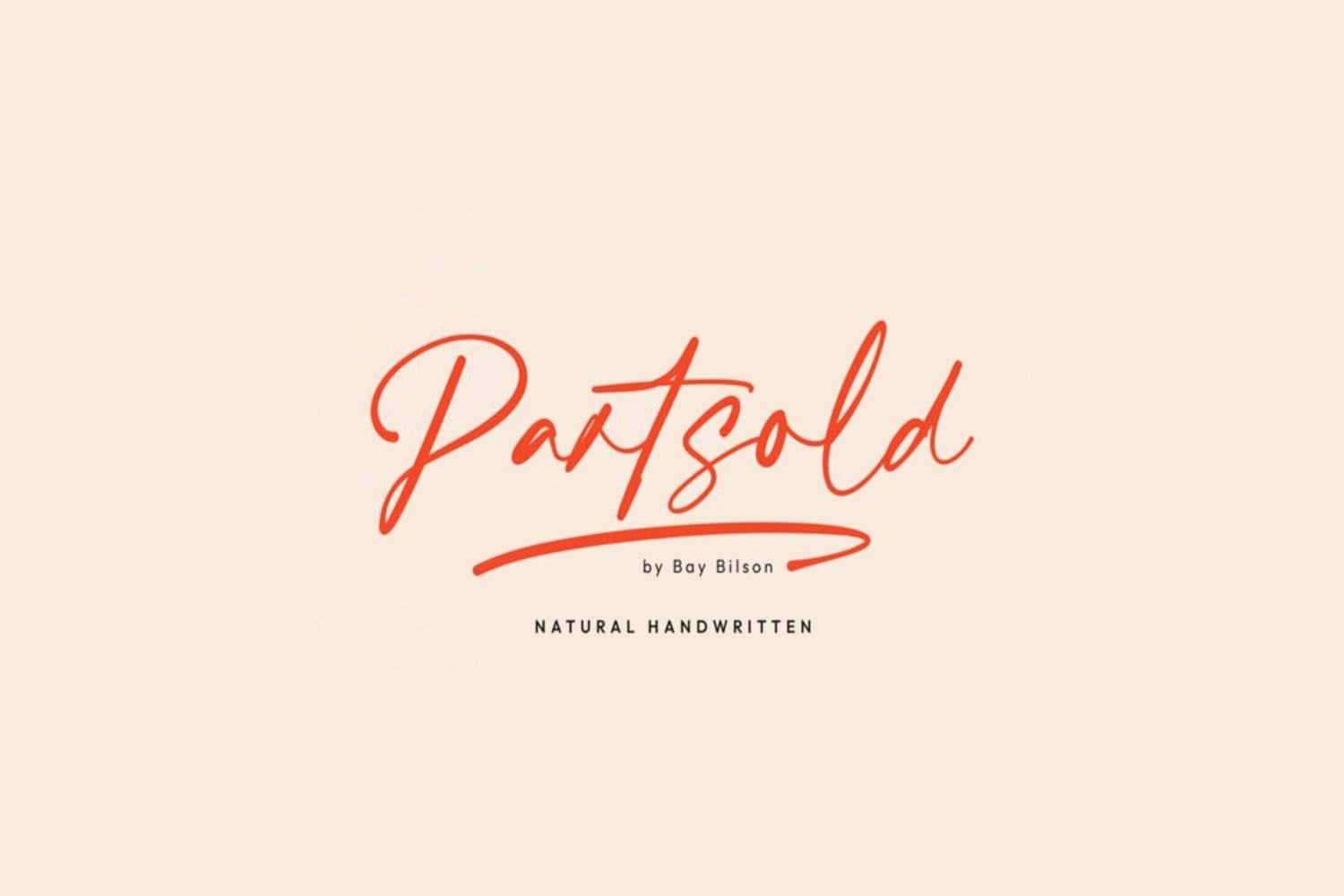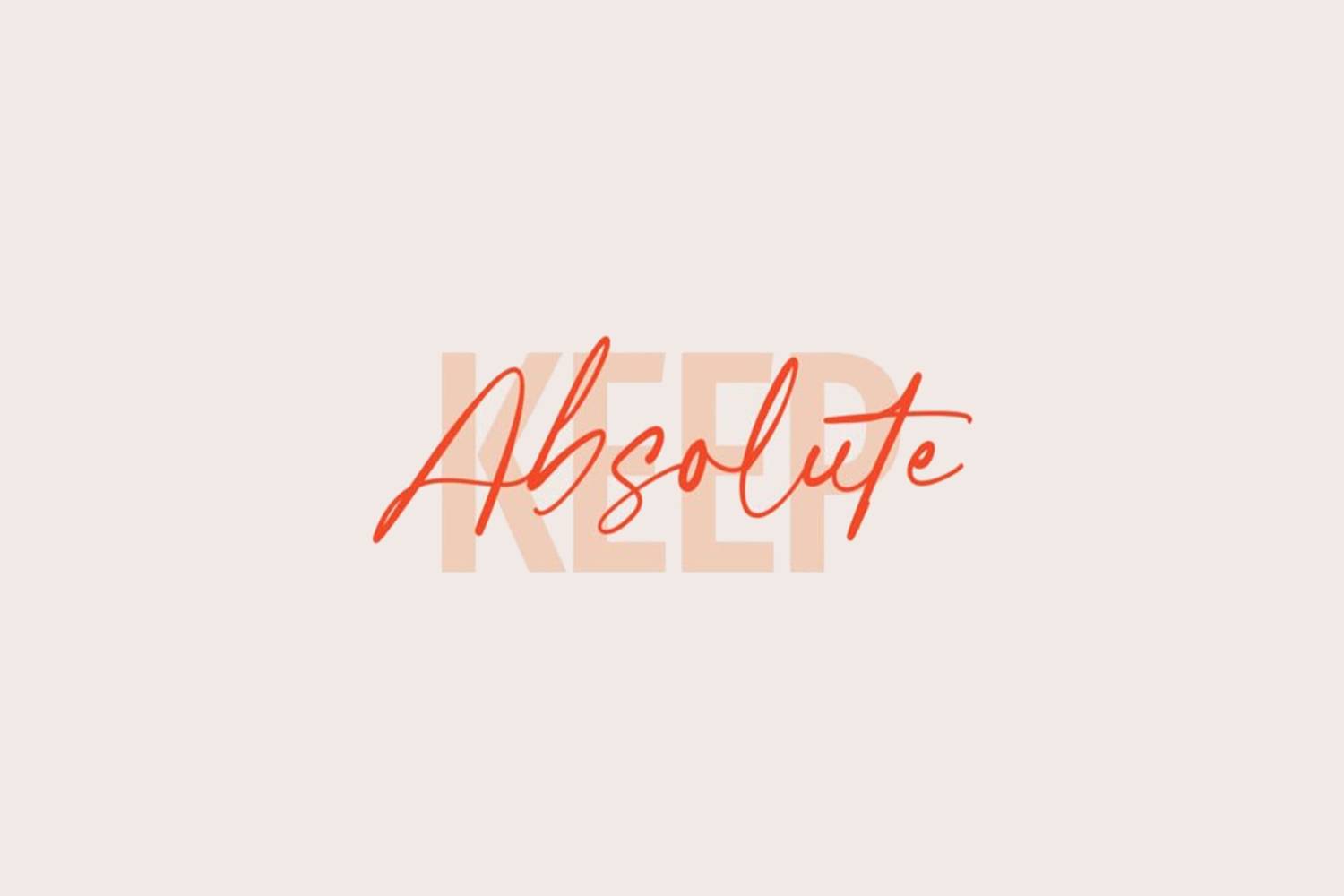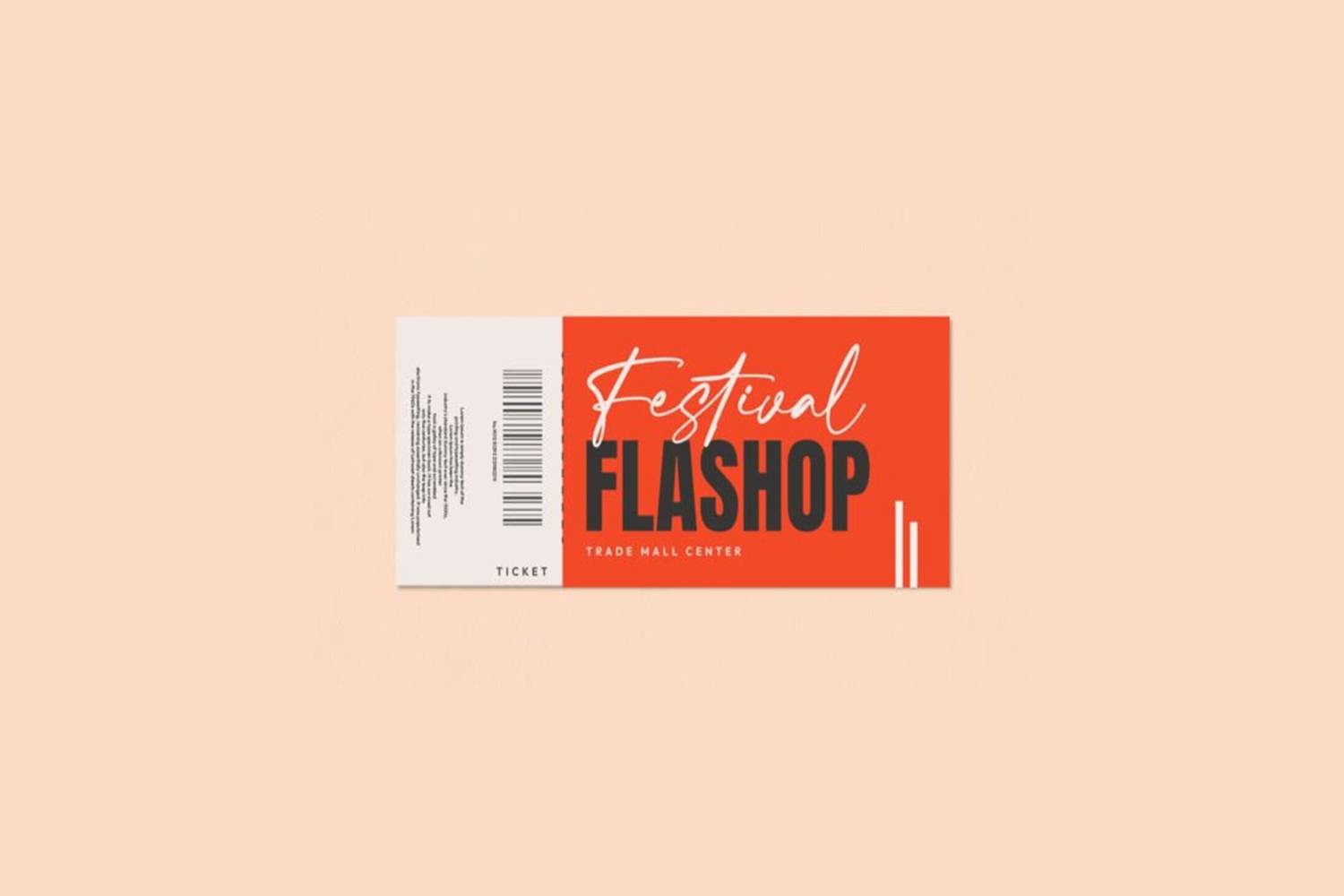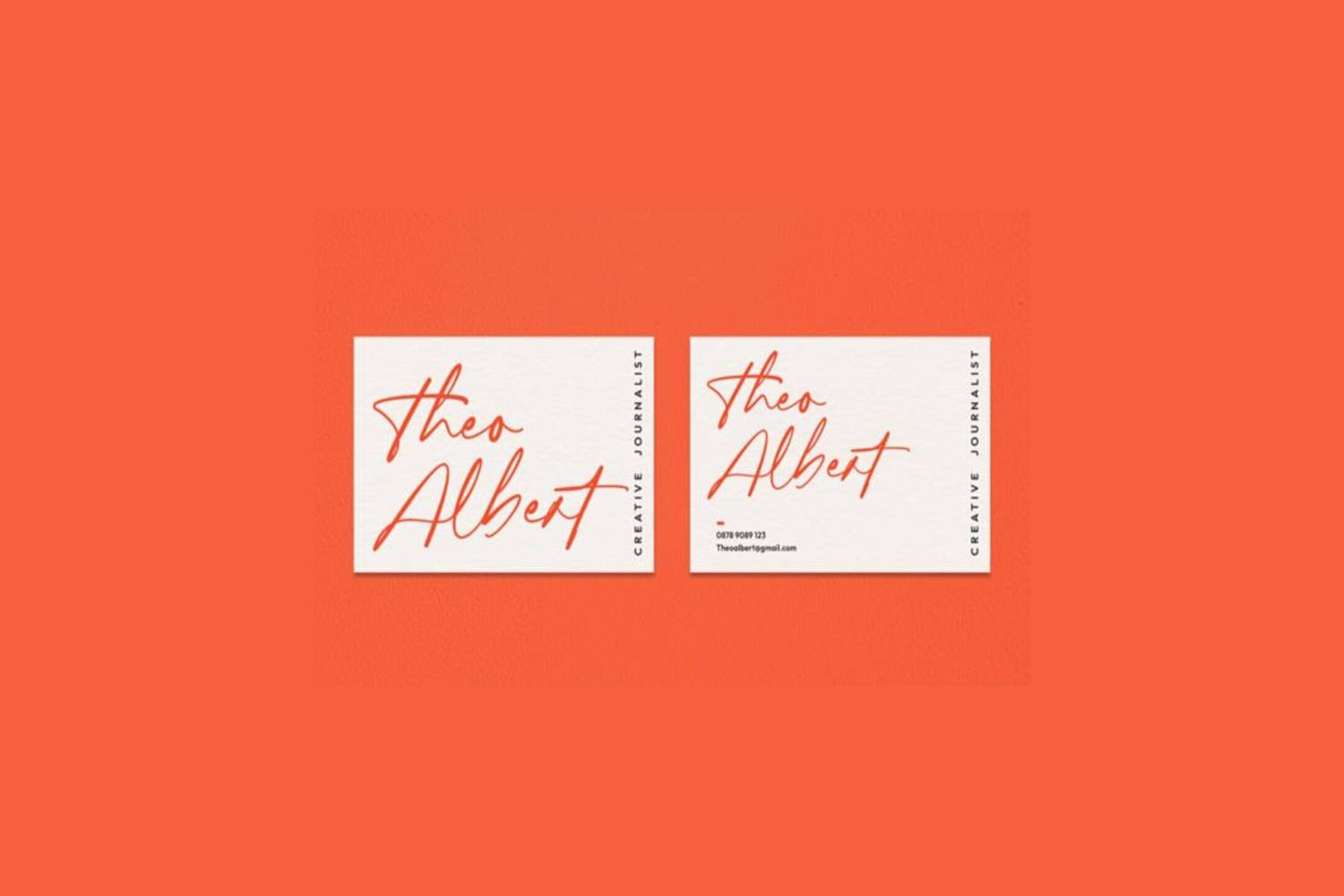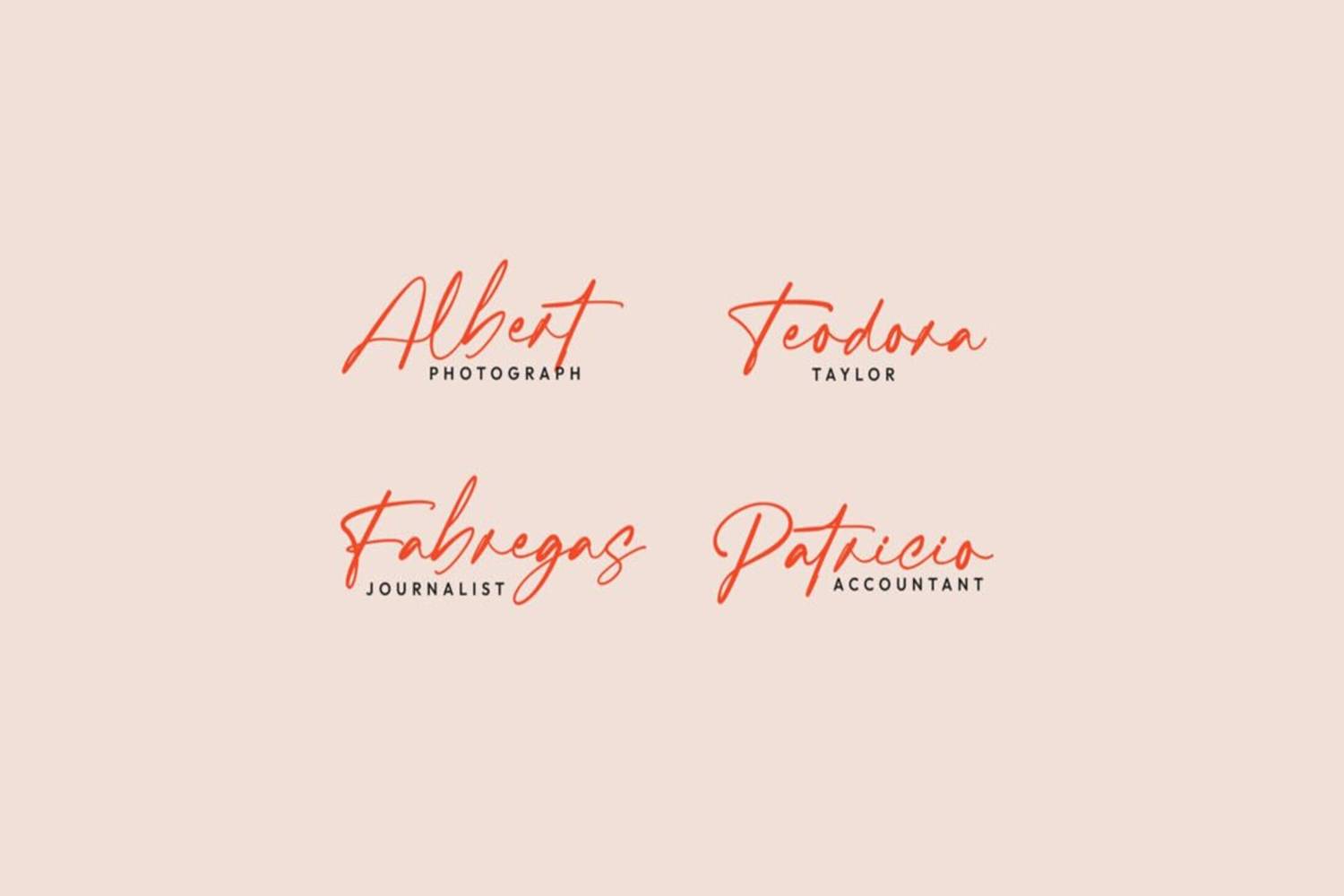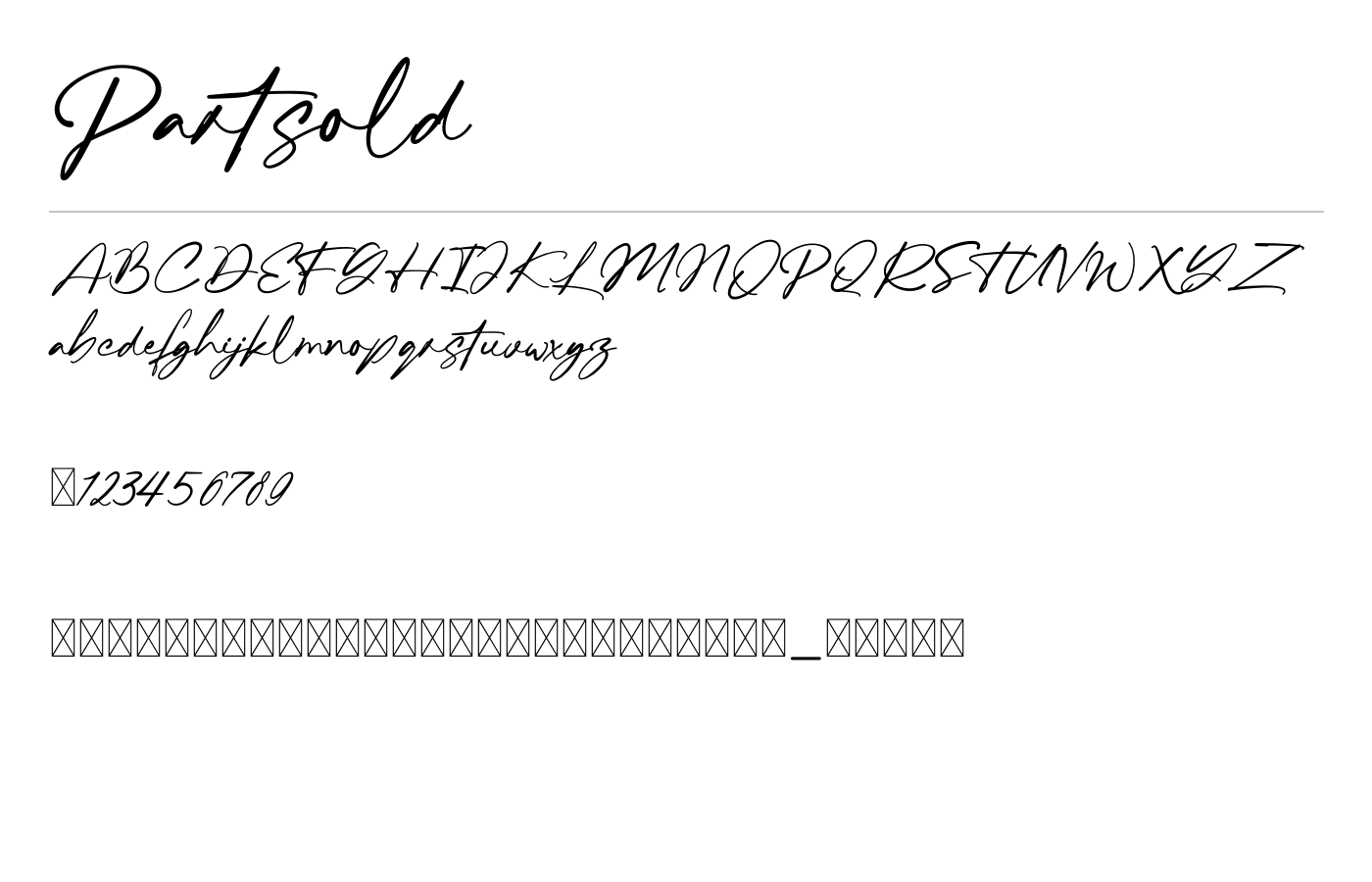
Partsold is a delicate and elegant script font characterized by its slender, flowing strokes and handwritten feel. Its light weight and slightly irregular letterforms give it a personal, artistic touch, making it ideal for projects that seek a refined yet casual style, such as invitations, branding, and fashion editorials. This font works best where a stylish, intimate impression is desired, adding charm and sophistication to creative designs.
Partsold Font
About Partsold Font
| Font family | Partsold Font |
| Designer | Wibisono |